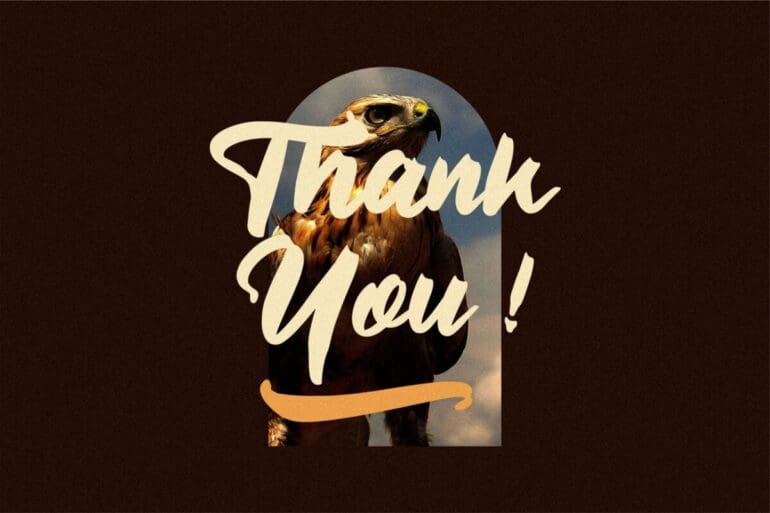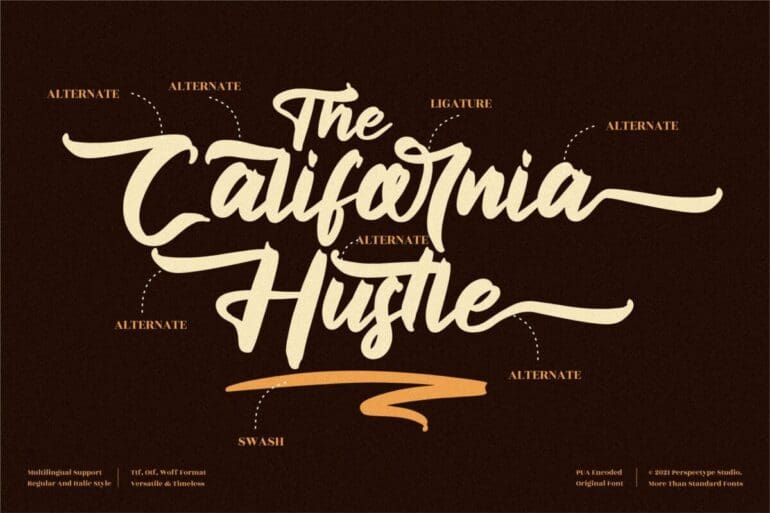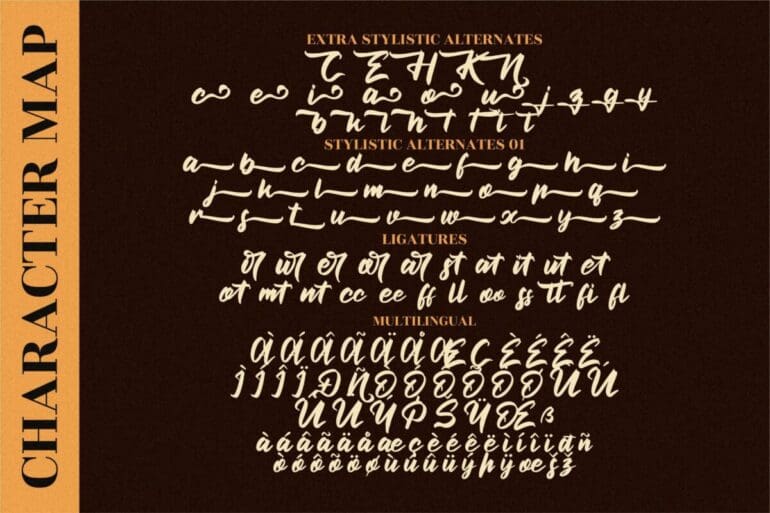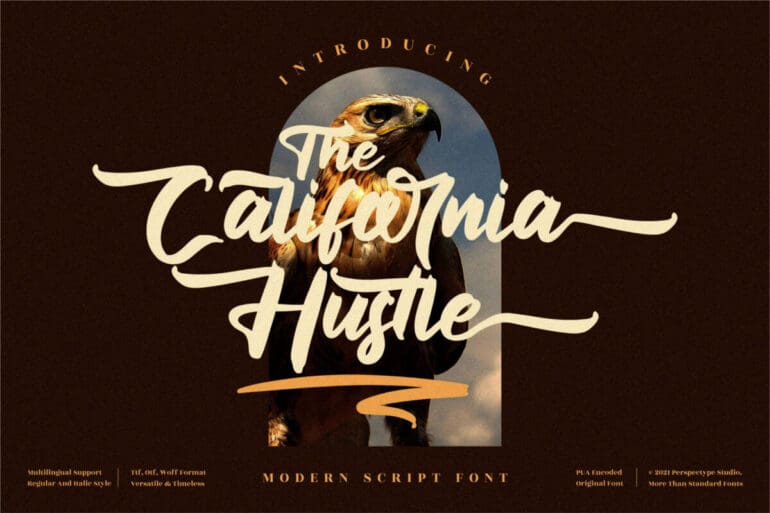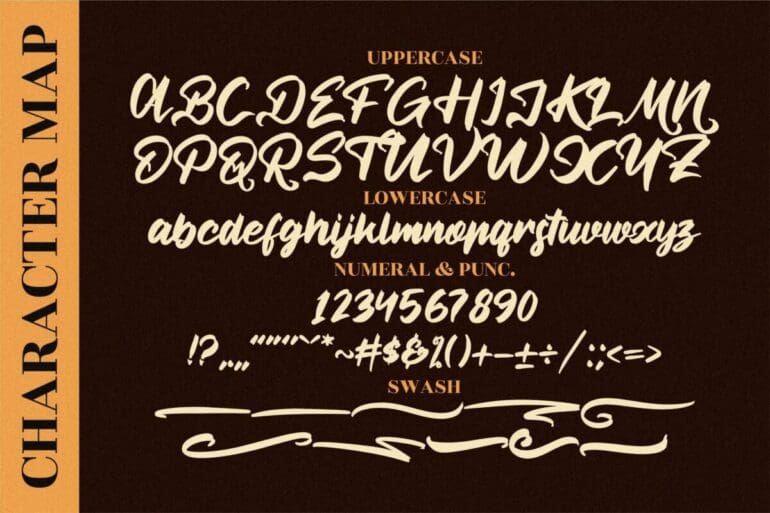
The California Hustle Font
The California Hustle is a timeless and refined Script Font. It looks beautiful on a variety of designs requiring a personalized style, such as wedding invitations, thank you cards, weddings, greeting cards, logos, and so on.